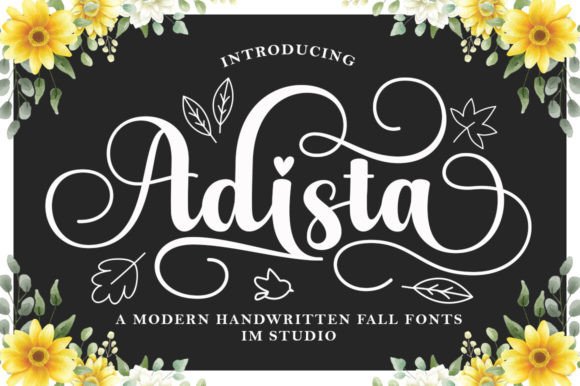
Introducing Adista Font: the perfect blend of elegance and modernity for all your creative endeavors. Created by the talented team at IM Studio, this bouncy and bold script calligraphy font is set to elevate your designs to new heights.
Are you ready to add a touch of magic to your projects? Adista Font is here to enchant you with its captivating curves and stylish strokes. With its unique and eye-catching design, this font is the ultimate choice for anyone seeking to make a bold statement.
Whether you're planning a Halloween extravaganza, designing fall-themed invitations, or creating stunning wedding projects, Adista Font has got you covered. Its versatility knows no bounds, allowing you to explore endless possibilities for your designs.
Imagine the impact this font can have on your stickers, sublimation prints, and birthday cards. It effortlessly adds a touch of sophistication and charm, setting your creations apart from the mundane. Let Adista Font be your secret weapon to mesmerize your audience.
T-shirt designs never looked so good! Adista Font brings a fresh and contemporary vibe to your apparel creations. Its bold and expressive nature will turn heads and leave a lasting impression. Stand out from the crowd and embrace the power of Adista Font.
If farmhouse designs are your passion, Adista Font is the missing piece of the puzzle. Its flowing lines and playful nature create a harmonious blend of rustic and modern aesthetics. Your farmhouse-inspired creations will exude warmth and charm, capturing the hearts of all who lay eyes on them.
But don't just take our word for it; let your imagination run wild with Adista Font. Give your creativity the boost it deserves and watch as your designs come to life with every stroke of this exquisite font.
Experience the magic of Adista Font today and unlock a world of creativity that knows no bounds. Embrace elegance, embrace modernity, and let your designs shine like never before. Get ready to captivate your audience and make your mark in the world of design. The possibilities are endless with Adista Font.